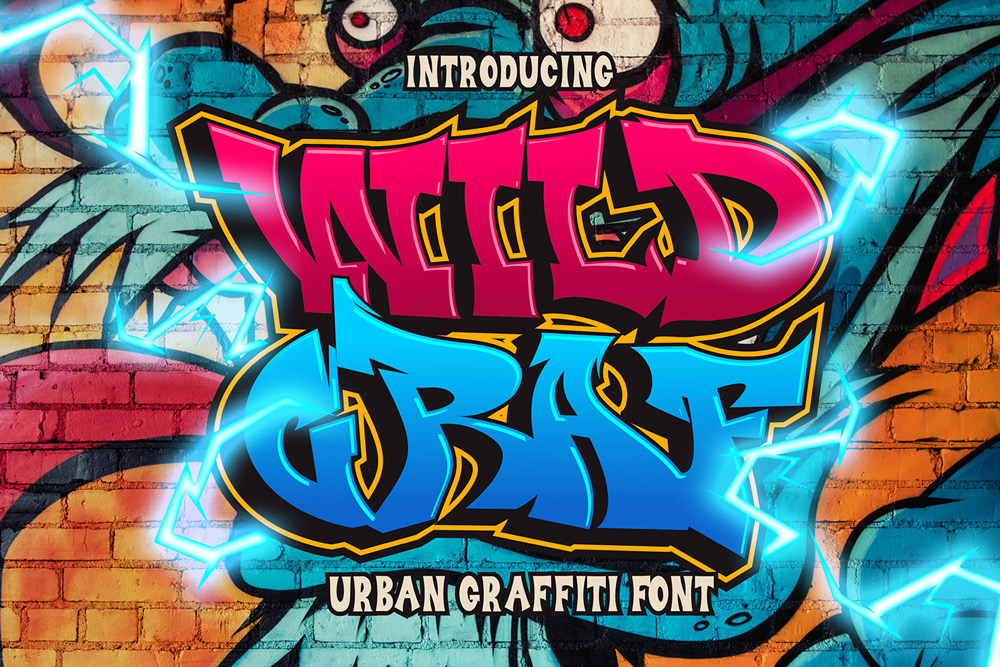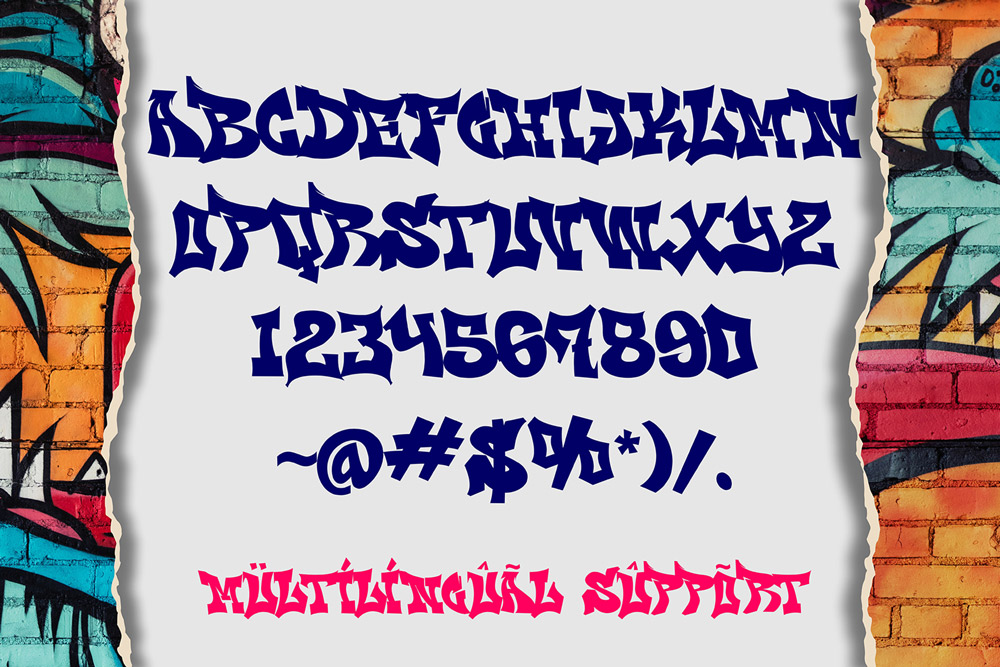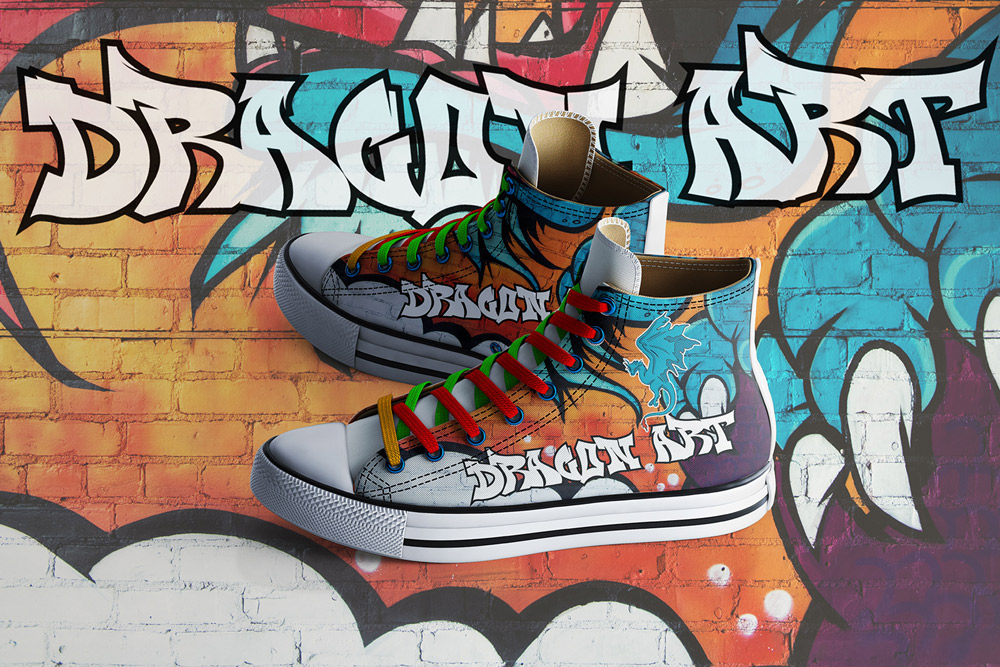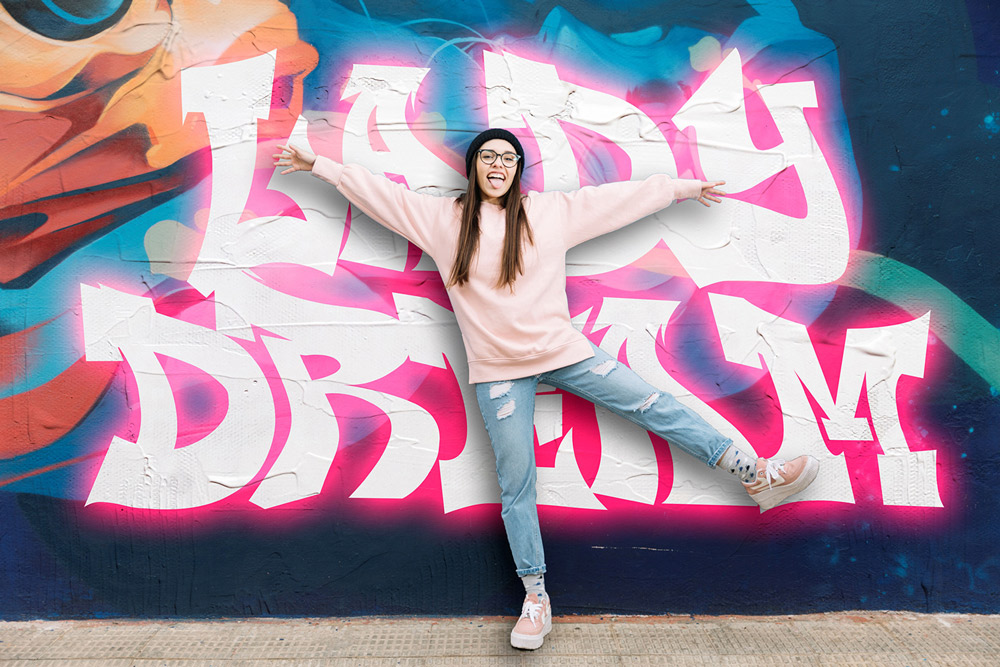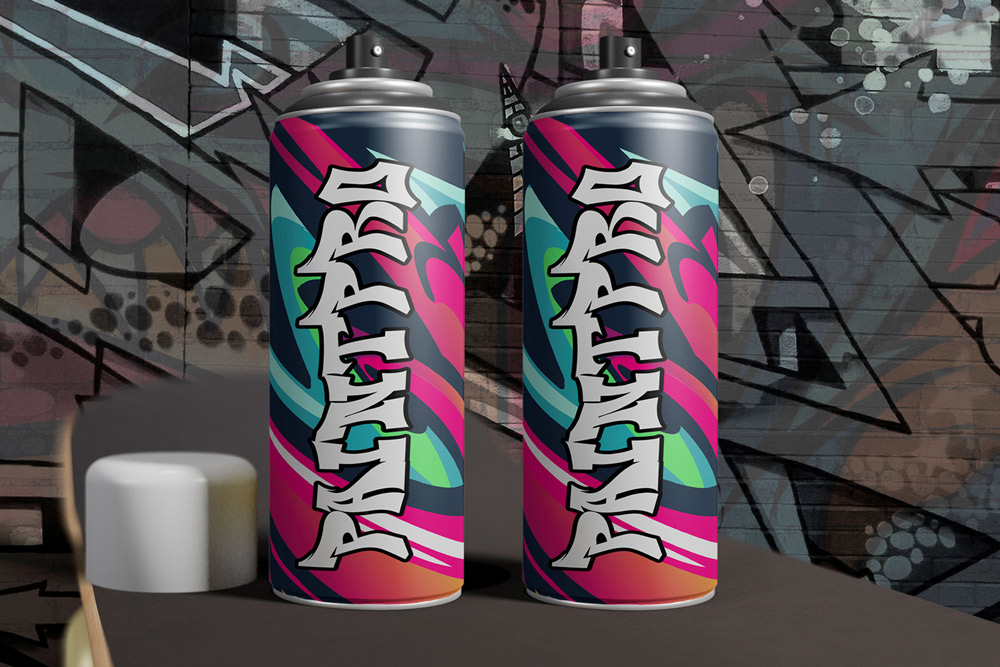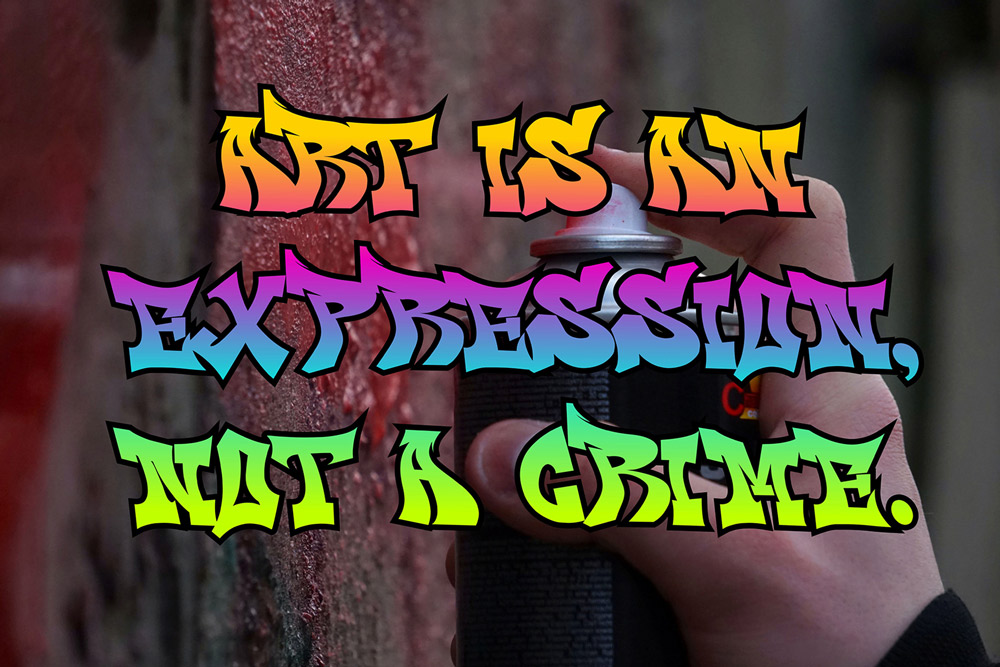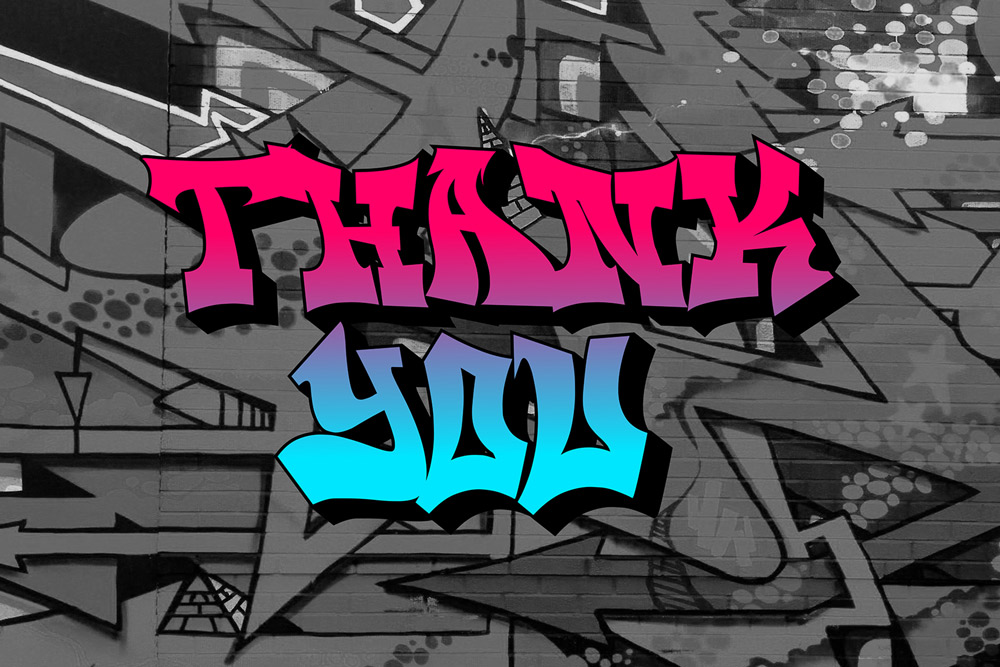
Wild Graff is a bold edgy graffiti font inspired by authentic street art culture, underground tagging, urban wall murals, and modern graffiti typography trends. Designed with aggressive letterforms, raw street energy, and expressive urban character, this graffiti display font delivers powerful visual impact for creative projects that demand attention. Whether you are creating streetwear branding, gaming graphics, music artwork, social media content, or urban merchandise, Wild Graff provides the authentic graffiti typography needed to make your designs stand out.
This edgy graffiti font combines modern display typography with raw urban aesthetics, creating a strong visual identity that feels rebellious, energetic, and contemporary. The bold graffiti-inspired structure gives every composition a distinctive street personality while maintaining excellent readability for both digital and print applications. Designers searching for a modern graffiti font with strong urban presence will appreciate the balance between artistic expression and professional usability.
Wild Graff is carefully crafted to capture the authentic spirit of graffiti culture while remaining versatile enough for commercial design projects. The edgy street-inspired style makes it ideal for logos, posters, apparel graphics, esports branding, album covers, and promotional campaigns. From hip hop artwork and gaming visuals to fashion branding and YouTube thumbnails, this urban display font adapts seamlessly to modern creative industries.
Edgy Graffiti Font Style
Wild Graff features bold graffiti-inspired letterforms influenced by urban street culture, spray paint art, underground wall graphics, and modern tagging aesthetics. The edgy typography creates a strong street-inspired visual identity.
Uppercase Characters
This urban graffiti font includes complete uppercase characters carefully designed with aggressive details and authentic street art personality.
Multilingual Support
Wild Graff supports multilingual characters, allowing creators to design international branding projects, merchandise, posters, and social media graphics with ease.
Number and Punctuation
This modern graffiti display font includes complete numbers and punctuation marks for versatile typography compositions across digital and print media.
Why Designers Love Wild Graff
Authentic Street Culture Energy
Designers love Wild Graff because it captures the raw energy of real graffiti culture while maintaining clean and functional typography structure. The edgy appearance instantly creates bold visual impact.
Perfect for Streetwear Branding
Wild Graff works exceptionally well for clothing brands, urban fashion campaigns, sneaker promotions, skateboard graphics, and modern streetwear collections. The aggressive graffiti style helps create strong brand identity.
Excellent for Gaming and Music Graphics
This edgy graffiti font is ideal for gaming logos, esports branding, Twitch banners, YouTube thumbnails, hip hop posters, and rap album covers. Its powerful typography style commands attention instantly.
High Impact for Social Media Content
Content creators and digital marketers use Wild Graff for Instagram graphics, TikTok visuals, YouTube banners, and promotional campaigns because the bold lettering creates strong engagement.
Flexible Across Creative Projects
Despite its aggressive urban appearance, Wild Graff remains highly versatile and works effectively across posters, branding systems, merchandise, advertising campaigns, and digital graphics.
Perfect For
Wild Graff is perfect for:
- Streetwear branding
- Graffiti logo design
- Urban merchandise
- Gaming typography
- Esports branding
- Hip hop posters
- Rap album covers
- Social media graphics
- YouTube thumbnails
- Skateboard artwork
- Fashion campaigns
- Promotional banners
- Music event flyers
- Creative typography projects
- Digital advertising
- Urban apparel graphics
- Festival posters
- Entertainment branding
- Youth culture visuals
- Modern street artwork
Edgy Graffiti Typography for Modern Branding
Modern branding trends continue embracing graffiti typography because it communicates authenticity, rebellion, creativity, and youthful energy. Wild Graff is specifically designed to support these branding trends through aggressive street-inspired letterforms and bold urban aesthetics.
The edgy graffiti structure creates typography compositions that feel energetic and memorable. This modern graffiti font is particularly effective for oversized headlines, branding systems, gaming graphics, promotional campaigns, and social media visuals targeting younger audiences.
Brands operating in fashion, gaming, music, entertainment, and digital culture can use Wild Graff to establish memorable visual identities with authentic street personality. The bold graffiti style helps projects stand out in crowded digital marketplaces where visual impact is essential.